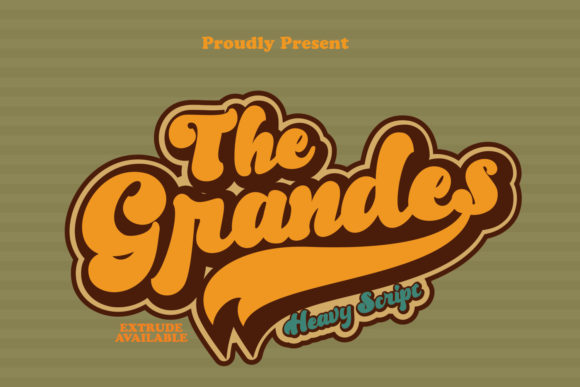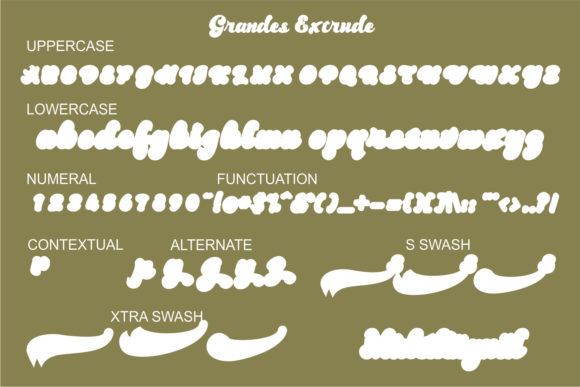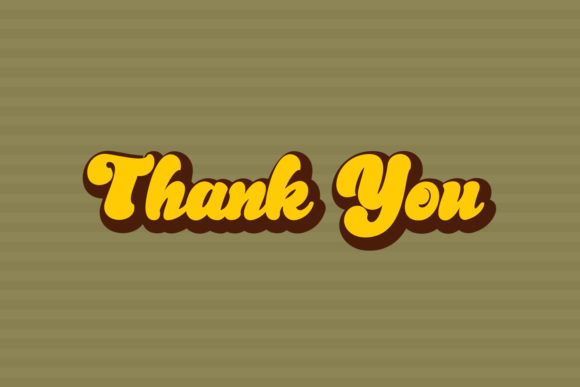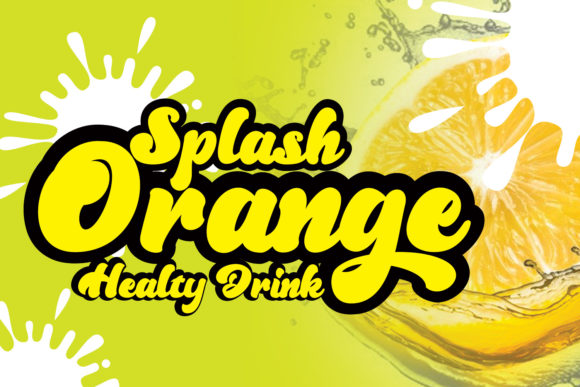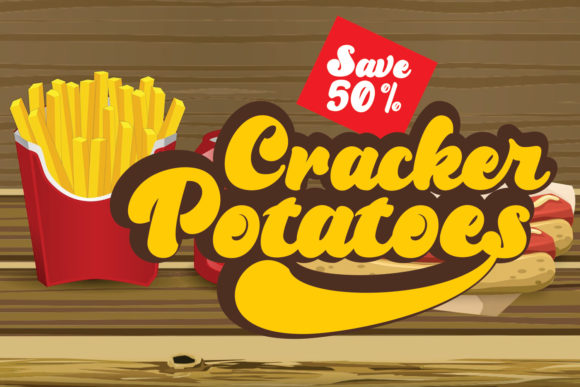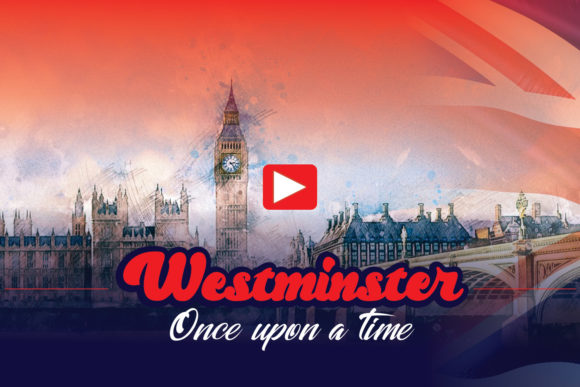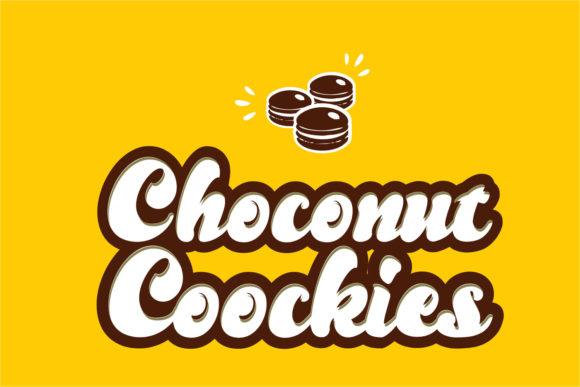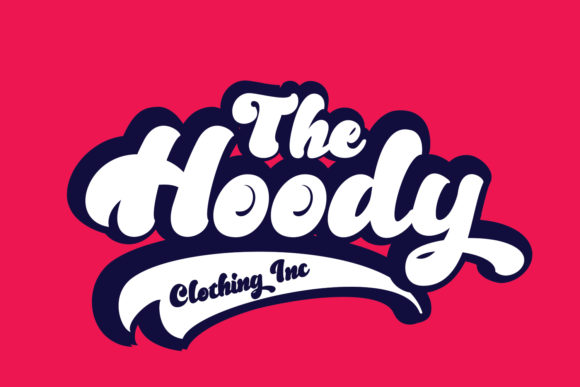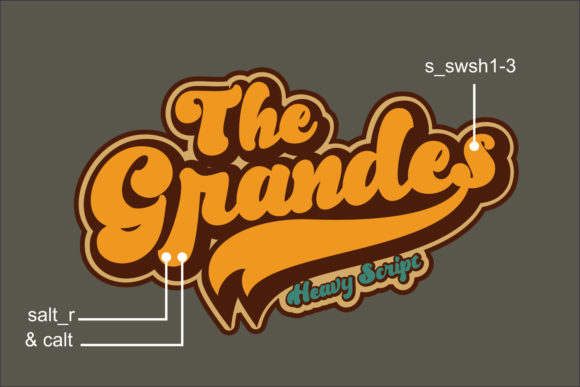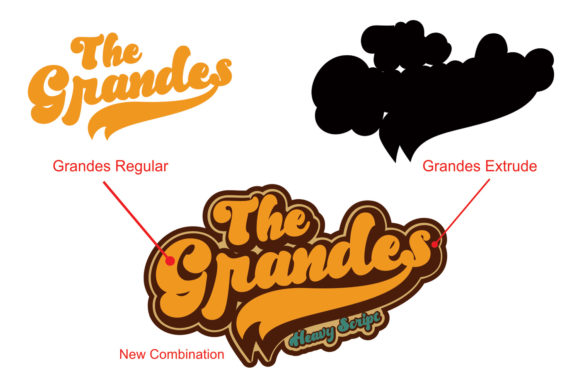
Grandes Font
About Grandes Font
Grandes is a thick script font with a vintage style. Use it to add that special retro touch to any design idea you can think of!